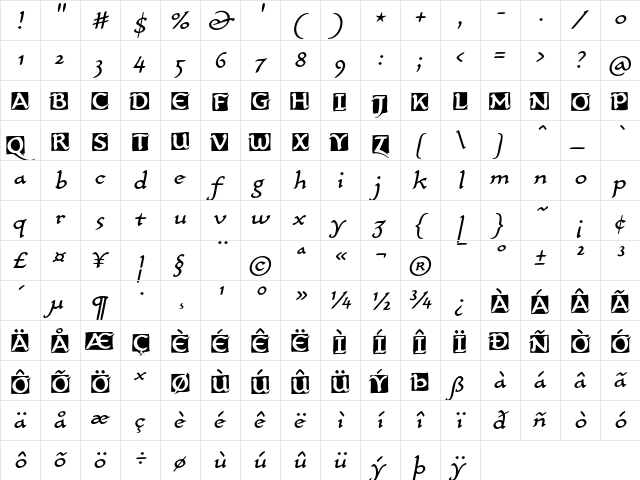
CarlinScript LT Std Initials Regular
| Foundry | Linotype GmbH |
| Designer | Hans-Jn Ellenberger |
Design Context for CarlinScript LT Std Initials Typeface
CarlinScript LT Std Initials brings a calligraphic fluidity to the page — its connecting strokes and expressive curves give it an unmistakably human quality. The delicate stroke weight brings airiness and refinement to layouts.
Font Pairing: Combine CarlinScript LT Std Initials with a simple geometric sans for maximum contrast — the tension between flowing curves and clean structure is a classic typographic pairing.